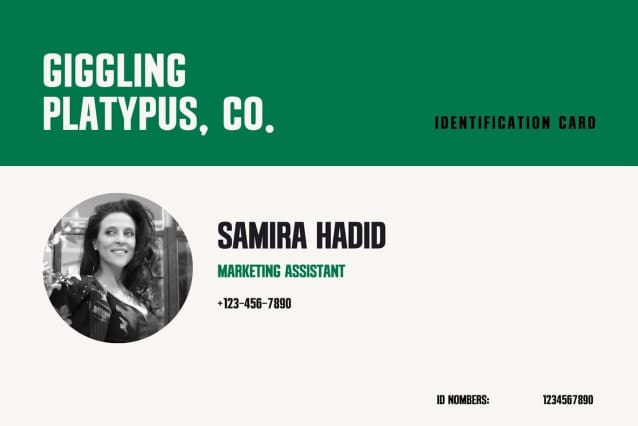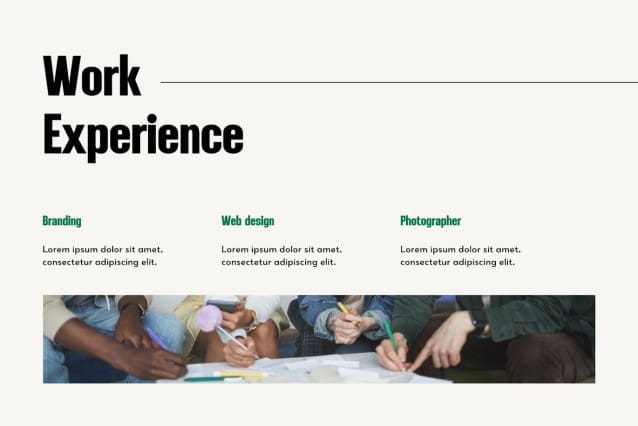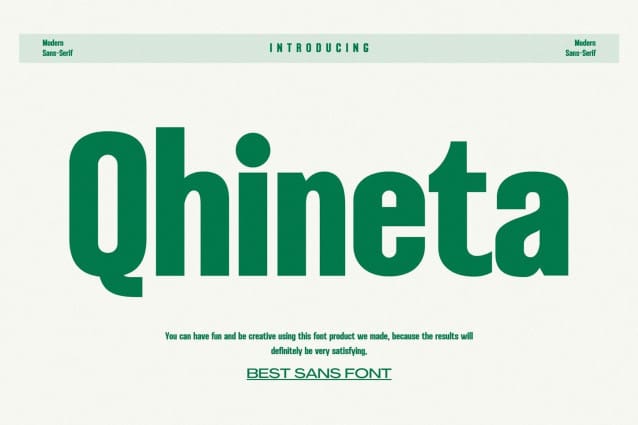
Qhineta Font
Qhineta Font a beautiful series of letters is encapsulated in this “Qhineta” font. The neat lettering is perfect for modern, eye-pleasing writing needs. It gives a modern feel while remaining stylish when used for writing. Cleanliness when making each letter is our top priority. You can have fun and get creative using this font product we created because the results will definitely be very satisfying.